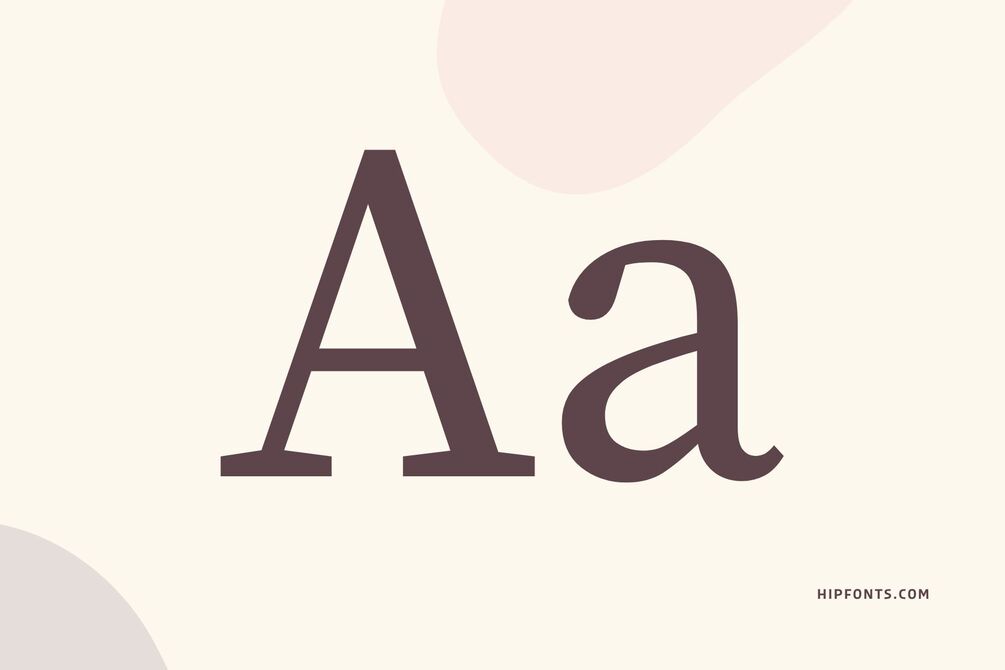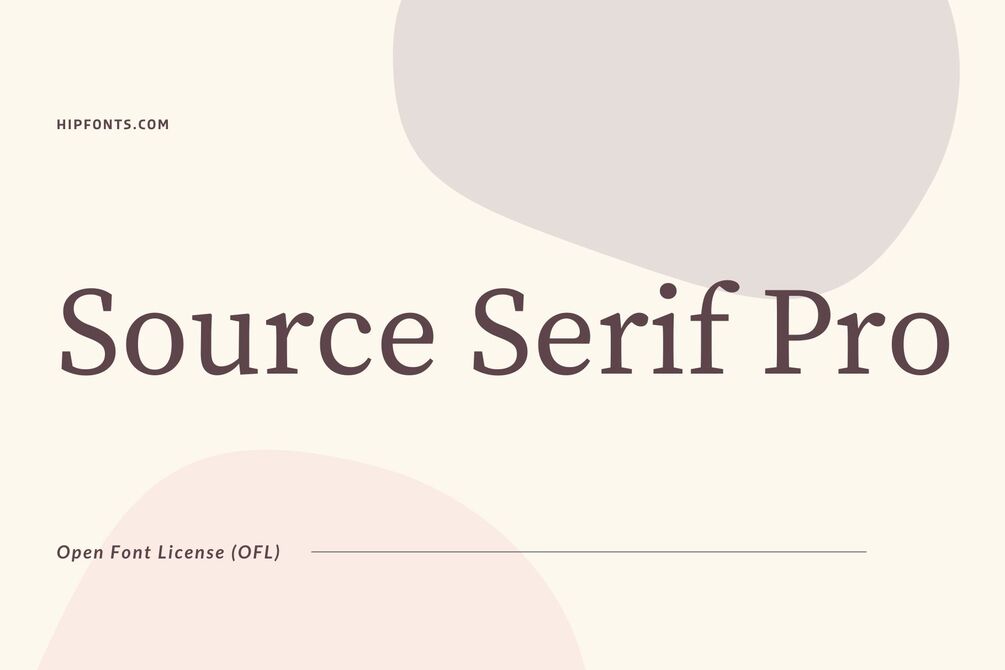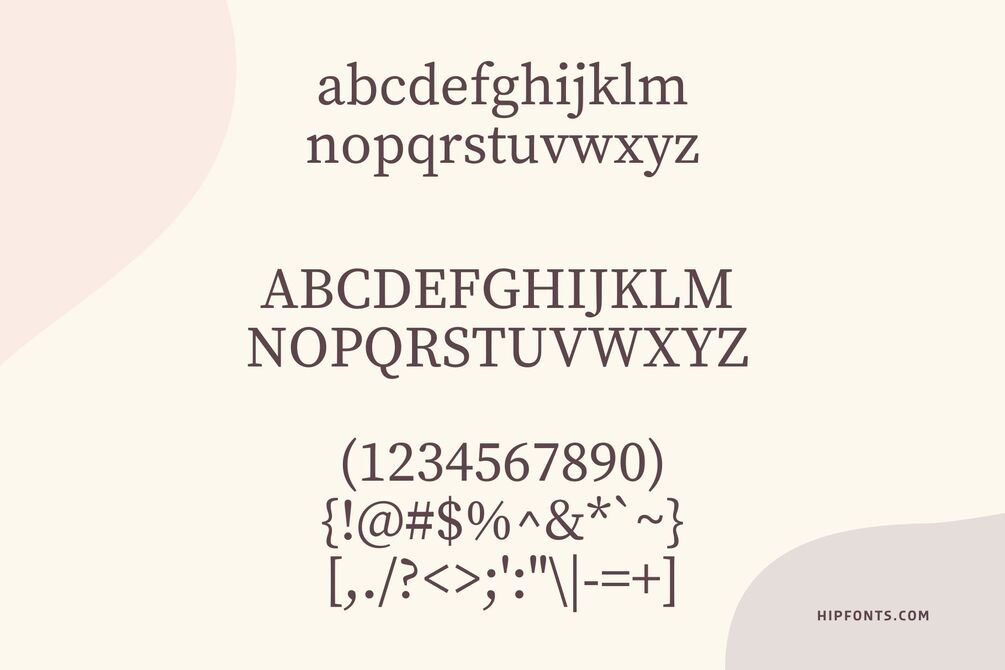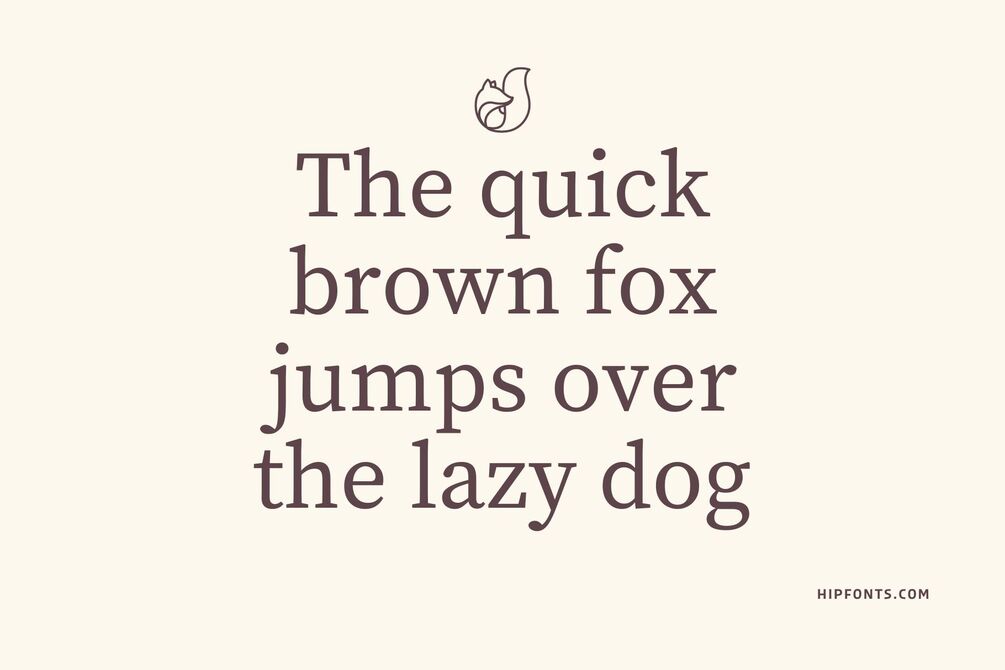
Source Serif Pro
Indulge in the timeless beauty and sophistication of Source Serif Pro, an elegant serif font developed by Adobe and designed by Frank Grießhammer.
Its refined letterforms and subtle details create a sense of classic charm that adds a touch of sophistication to any design. Whether you're working on books, editorial layouts, or branding materials, Source Serif Pro delivers a perfect blend of elegance and legibility.
With its range of weights and styles, you can create visual hierarchy and add a distinctive character to your typography. From print to digital, Source Serif Pro elevates your compositions and conveys a sense of timeless beauty.